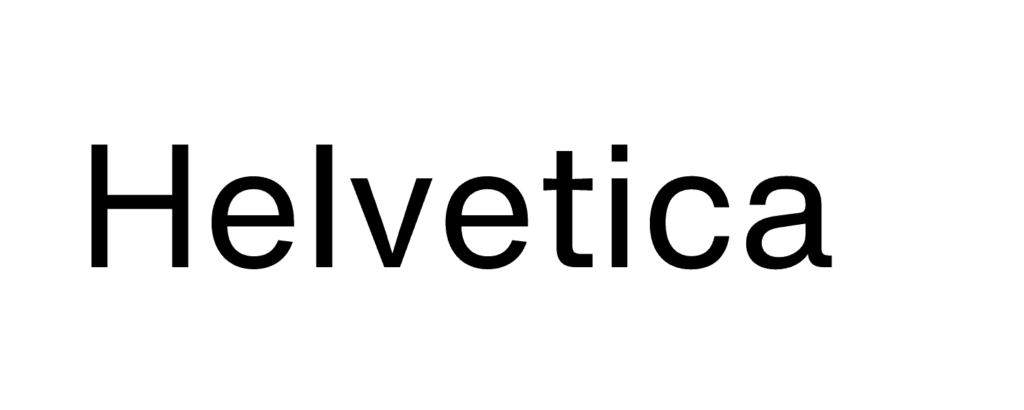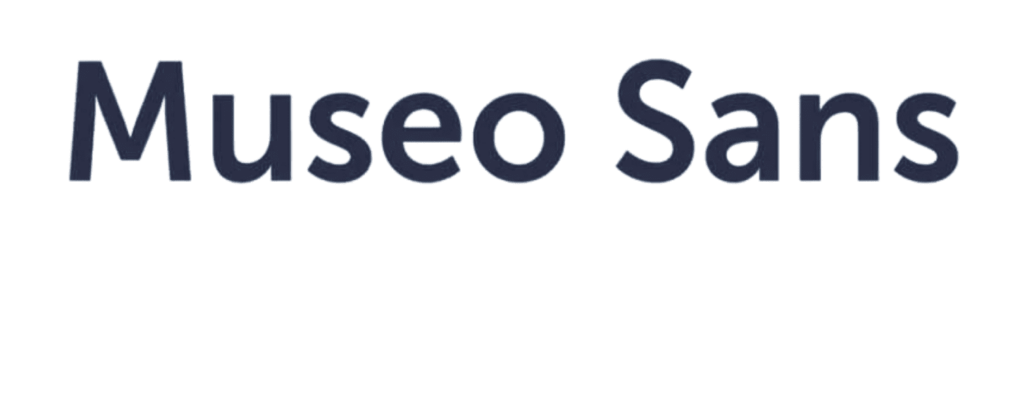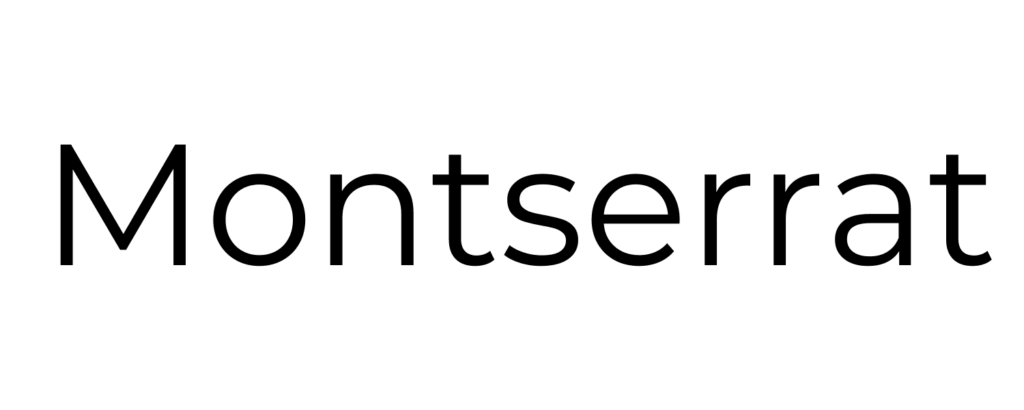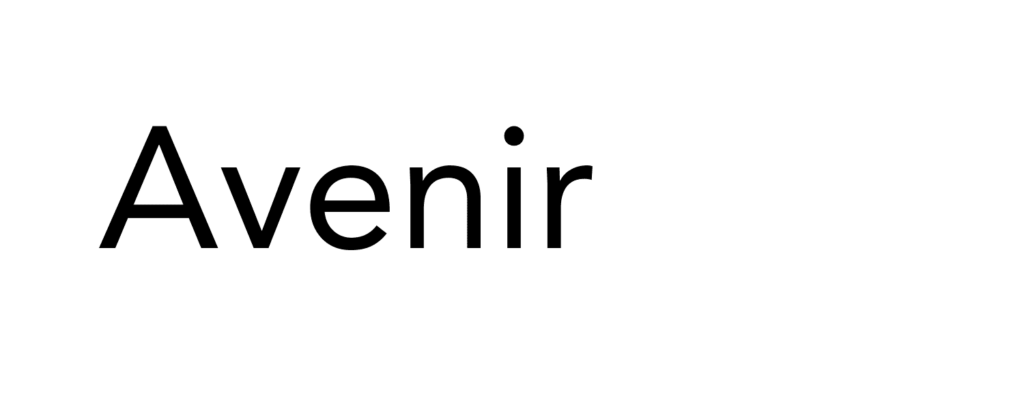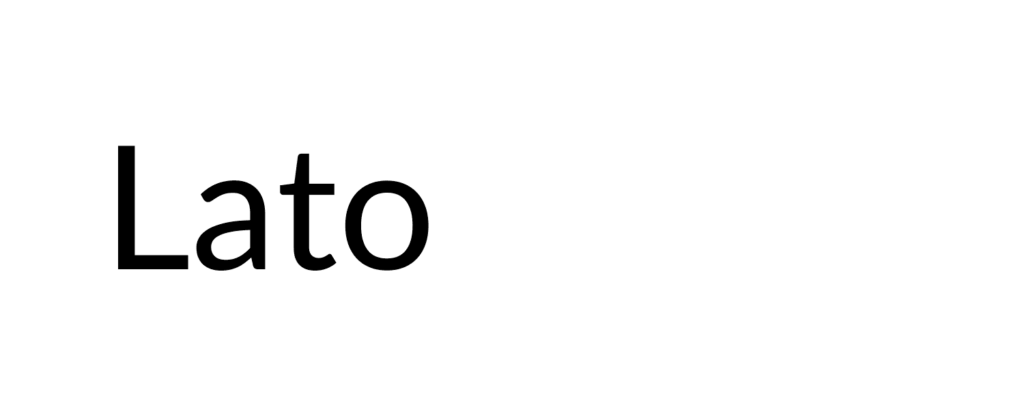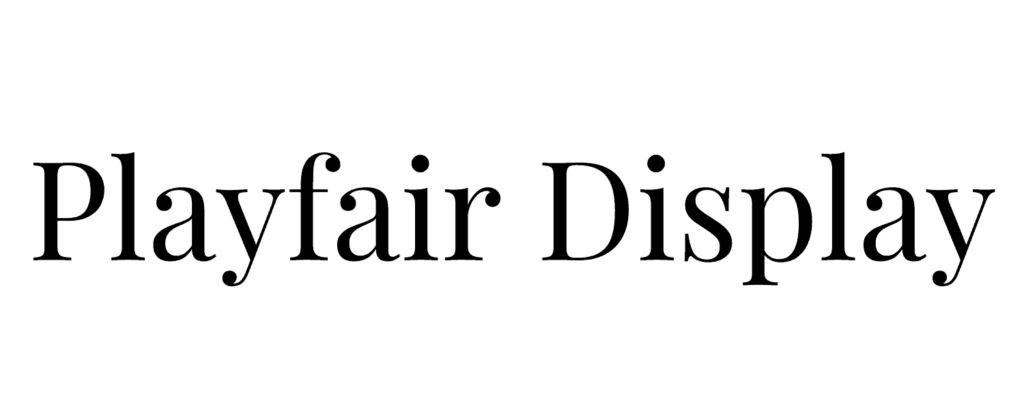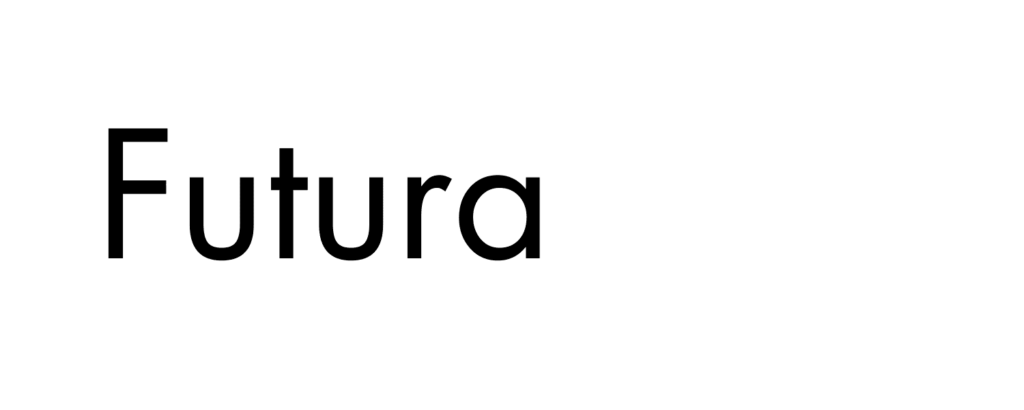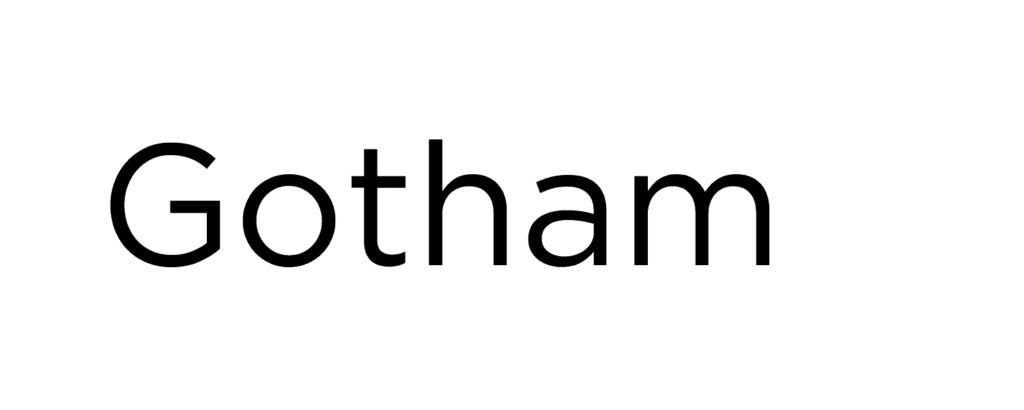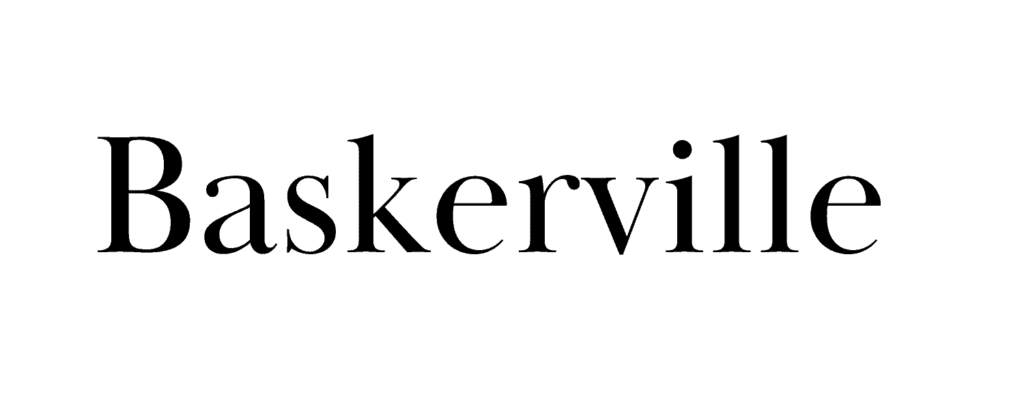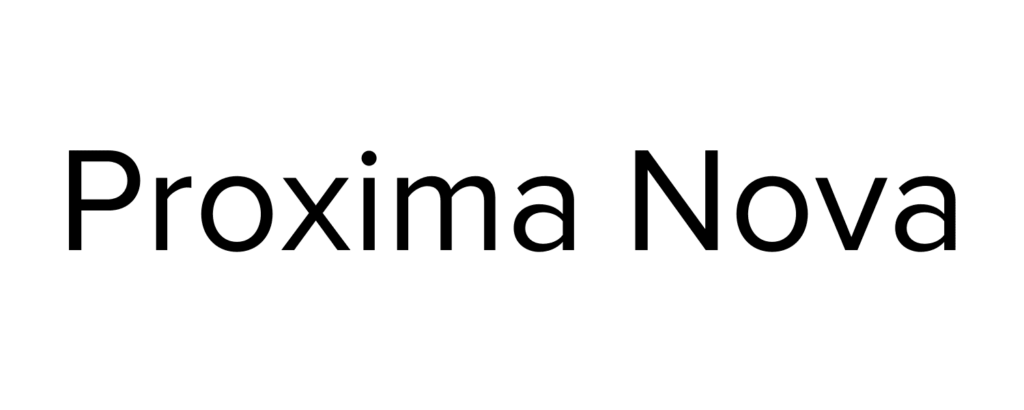
Marketing fonts have the extraordinary ability to captivate, communicate, and shape perceptions. They play a pivotal role in advertising, capturing attention, conveying messages, and creating brand identities that leave a lasting impression. Every stroke, curve, and flourish holds the potential to ignite emotions, drive action, and establish a strong connection with your target audience. The right font can elevate your marketing materials from ordinary to extraordinary.
In this blog post, we’ll explore the 15 best fonts for advertising. Prepare to be inspired as we delve into a collection of typefaces that have proven themselves as true marketing workhorses, leaving a lasting impression on viewers and conveying your message with remarkable impact.
These ad fonts are not mere letters on a page but the secret weapons of successful advertising campaigns. Each typeface has been carefully selected for its ability to evoke emotions, establish credibility, and communicate your brand’s essence.
15 Advertising Fonts You Should Consider
Discover a curated collection of typefaces that have proven to be the driving force behind successful advertising campaigns. Harness the power of typography and leave a lasting impression that will propel your brand forward.
Helvetica
If you’re trying to find the best font for advertising, consider Helvetica. This timeless font has stood the test of time in advertising. Its clean and modern appearance makes it highly versatile and suitable for various industries. Whether you’re promoting a tech startup or a fashion brand, Helvetica’s simplicity and clarity ensure that your message is delivered with impact. Its neutral design seamlessly blends various design elements, making it an excellent choice for headlines and body text. Helvetica’s wide availability across different platforms and software makes it a practical and reliable option for any advertising campaign.
Futura
Futura is one of the most appealing fonts for advertising that effortlessly combines geometric shapes with elegant curves, resulting in a sophisticated and modern aesthetic. Its clean lines and balanced proportions give your advertisements a sleek and professional look. Futura works exceptionally well as a headline font, grabbing attention with its unique letterforms. Its legibility makes it suitable for body text, allowing you to maintain a consistent and cohesive visual identity throughout your advertising materials. Whether you’re designing posters, brochures, or digital ads, Futura’s timeless appeal will elevate your marketing efforts and communicate a sense of style and refinement.
Gotham
Gotham is a font that stands out with its distinctive letterforms, making it highly legible and easily recognizable. Its contemporary style and balanced proportions have made it popular for branding and advertising campaigns across various industries. Gotham’s versatility, whether creating print ads, billboards, or digital banners, shines through. Its modern and clean aesthetic conveys a sense of professionalism and confidence, making it one of the best marketing fonts. It is ideal for companies looking to make a bold and memorable statement with their advertising materials.
Baskerville
There’s a reason Baskerville is considered one of the best fonts for ads. Baskerville is a serif font that seamlessly combines classical elegance with a touch of modernity. This font effectively conveys a sense of tradition and trust, making it an ideal choice for luxury brands and traditional advertising materials. Baskerville’s high contrast between thick and thin strokes and its distinctive serifs add a touch of sophistication to any advertisement. Whether you’re designing print ads, brochures, or invitations, Baskerville’s timeless appeal will lend a sense of refinement and credibility to your marketing materials.
Proxima Nova
Proxima Nova perfectly balances classic and contemporary styles, making it one of the most versatile fonts for advertising. Its friendly and approachable feel makes it an excellent choice for advertisements targeting a broad audience. Proxima Nova’s clean lines and balanced letterforms contribute to its high legibility, allowing your message to be easily understood and remembered. Proxima Nova’s versatility ensures that your advertising materials are engaging, welcoming, and impactful, whether you’re creating flyers, social media ads, or website banners.
Trade Gothic
Trade Gothic is a font that exudes reliability and strength. Its clean lines and sturdy appearance make it ideal for conveying a sense of stability and trustworthiness. Whether you’re designing product packaging, signage, or digital ads, Trade Gothic’s no-nonsense design ensures that your message comes across clearly and effectively. This font’s versatility makes it the best font for advertising for various industries, from finance and technology to manufacturing and retail. With Trade Gothic, your advertising materials will have a professional and confident appeal, capturing the attention of your target audience.
Bodoni
Bodoni is a stylish and sophisticated serif font that adds a touch of elegance to any advertisement. Its high contrast between thick and thin strokes and its distinctive serifs make it particularly suitable for luxury brands and upscale advertising materials. Bodoni’s classic and refined aesthetic creates a sense of exclusivity and sophistication, making it an excellent choice for high-end fashion, beauty, and lifestyle brands. Whether you’re designing magazine ads, event invitations, or product catalogs, Bodoni’s timeless appeal will elevate your advertising materials and create a lasting impression.
Roboto
Roboto is a modern and widely used font that has gained popularity for its legibility and versatility. Its clean and geometric design makes it highly readable, even at smaller sizes. Roboto’s balanced proportions and various weights allow for flexible usage in different advertising materials, from digital banners to print brochures. Whether you’re creating ads for a technology startup or a fitness brand, Roboto’s contemporary and approachable style ensures that your message is conveyed with clarity and impact. Roboto offers a reliable choice for your marketing materials with its widespread availability and compatibility. If you’re searching for the best font for marketing materials, Roboto should be on your list.